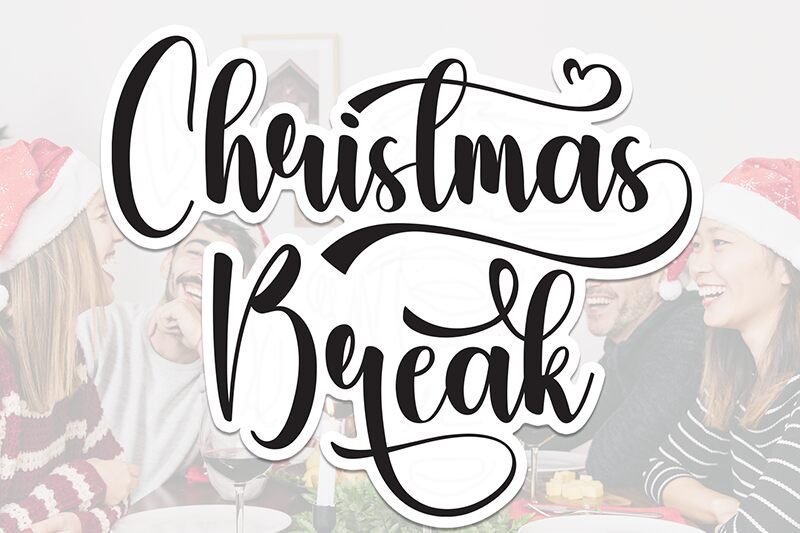
Christmas Break
Christmas Break font, designed by Andi Moz, captures the casual flair of beautiful handwritten calligraphy. Its artistic touch and elegant essence grab attention appealingly, appreciating it as a tool to express personal feelings and send lovely greetings. Every word will visually attract with its soft edges and stylish modern appeal.
Add this free calligraphy font to Christmas and holiday card designs, branding projects for cosmetic or fashion-related businesses, labels, merchandise items like t-shirts or mugs with motivational quotes that stand out. Take advantage of its charming style in greeting cards, wedding invitations, etc.